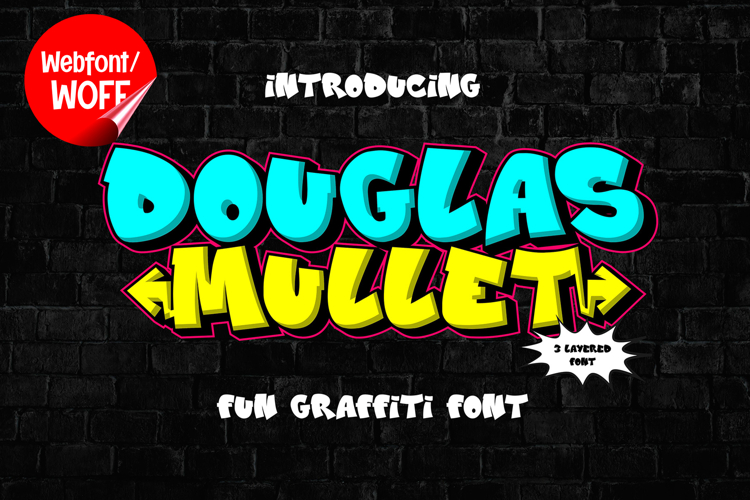
Douglas Mullet | 3D Layered Graffiti Webfont for Urban
Douglas Mullet is a 3D layered graffiti webfont designed to bring bold dimension and strong street-style character into modern website design. Inspired by classic graffiti lettering with a contemporary twist, this font features thick structures combined with layered depth, creating a visually striking and energetic appearance. It is an excellent choice for projects that require a powerful and expressive typographic style.
Douglas Mullet includes a complete set of uppercase characters designed with bold proportions and detailed layering. The 3D effect gives each letter a sense of volume and depth, making it ideal for headlines, banners, hero sections, and featured content. These eye-catching letterforms help create strong visual hierarchy, guiding attention to key elements within a website layout.
In addition to letters, the font provides numbers and punctuation, allowing it to be used across a wide range of website elements. It works effectively for promotional text, event information, pricing displays, and navigation highlights. Each character maintains the same layered graffiti style, ensuring a cohesive and consistent design throughout the interface.
With multilingual support, Douglas Mullet includes a wide range of accented characters, making it suitable for international websites and global audiences. This allows content to be presented clearly across different languages while preserving the bold and dimensional graffiti aesthetic.
The 3D layered graffiti style of Douglas Mullet makes it especially suitable for urban-themed websites, streetwear brands, music platforms, gaming interfaces, and creative portfolios. Its strong visual depth adds a sense of movement and impact, helping designs stand out in competitive digital spaces. The graffiti influence also adds authenticity and a raw creative edge.
Despite its bold and layered appearance, Douglas Mullet is designed with readability in mind. The spacing and structure of each character are carefully balanced to ensure clarity, especially in display sizes. This makes it suitable for impactful headings and short text elements where both style and legibility are important.
Douglas Mullet is a webfont that combines graffiti aesthetics with dimensional design and modern usability. Its layered 3D structure, bold forms, and urban influence create a distinctive visual identity that enhances website design. For projects that demand strong presence, depth, and creative expression, Douglas Mullet offers a powerful and visually engaging typographic solution.